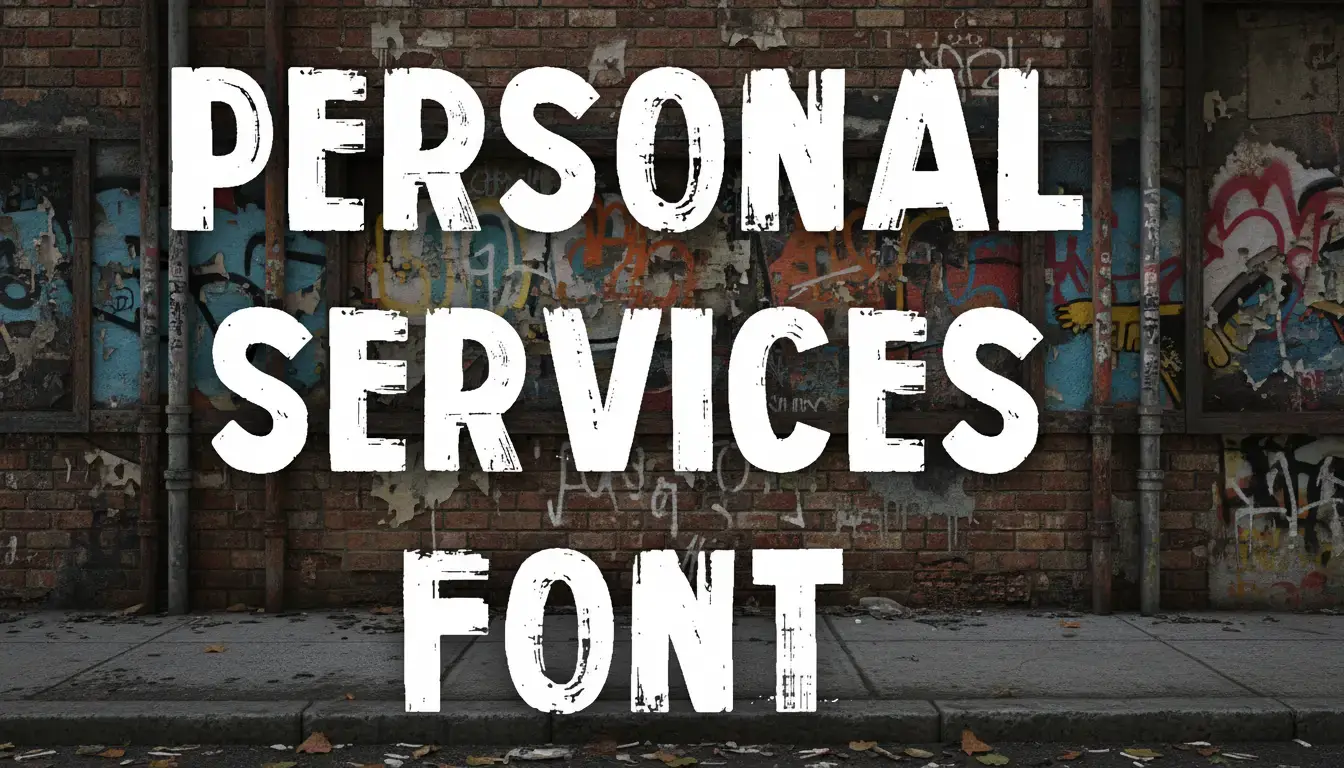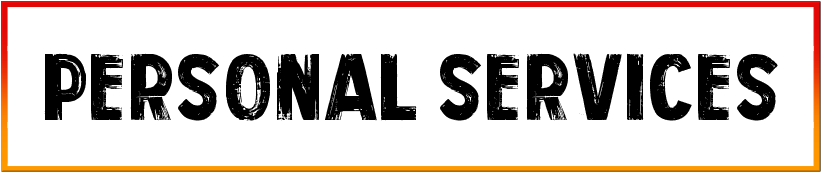
Personal Services Font
Personal Services is a fancy font created by IMAGEX. Bold and full of character, it's built to stand out rather than blend in. You can download it for free and test it with your own words in the preview above.
What You Can Type With Personal Services
With complete upper and lowercase letters and all ten digits, Personal Services is ready for real wording, not just a single headline. Common punctuation such as &, !, ? and @ is included as well. It also has the accented letters you need for Spanish, French, German, Portuguese and Italian.
Where Personal Services Works Best
Personal Services is a natural fit for posters, logos and eye-catching headlines. Use it for one standout word or headline and let simpler fonts handle the rest.
Does Personal Services support accented letters?
Yes. Personal Services includes the accented letters needed for Spanish, French, German, Portuguese and Italian, so it works for more than just English.